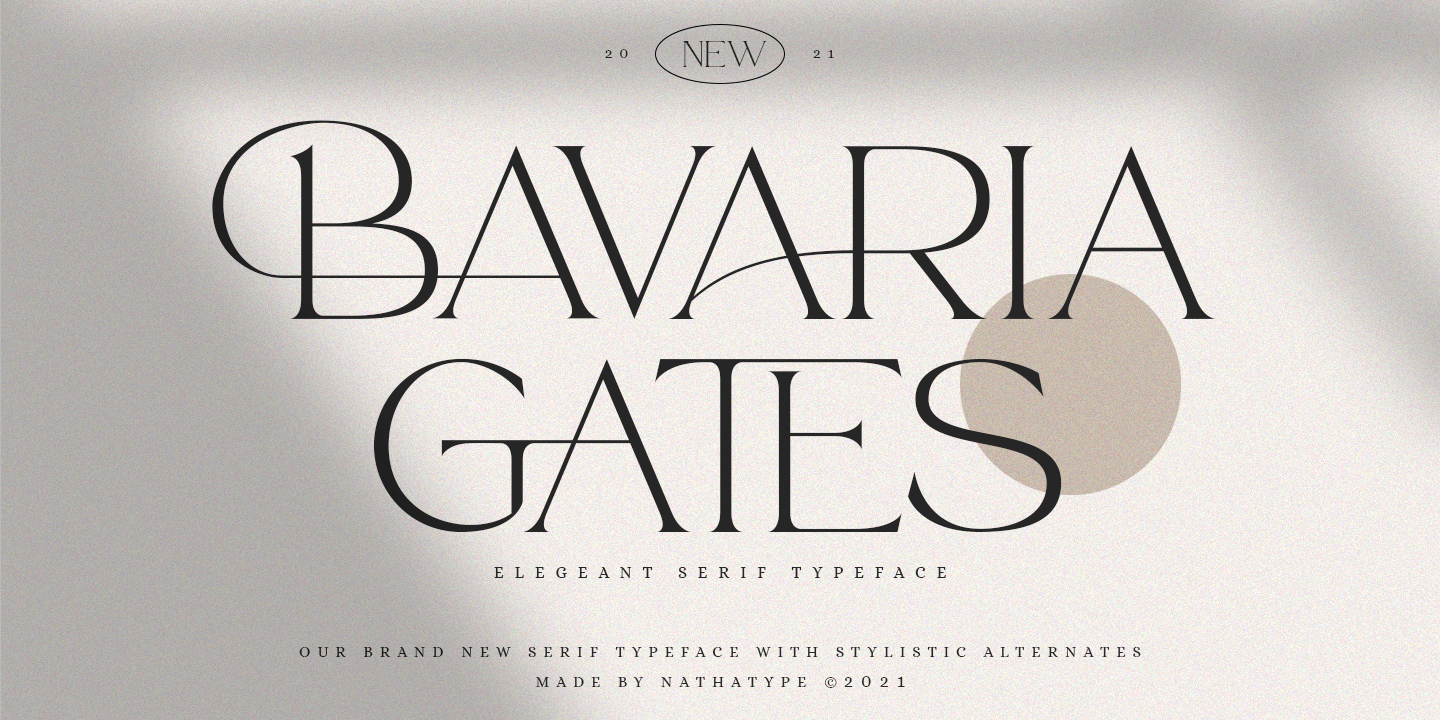
The Bavaria Gates Font is an excellent choice for designs that demand a modern, elegant, and often sophisticated serif aesthetic, perfect for conveying trust and establishment. Imagine it gracing the branding of high-end real estate agencies, adding a refined and professional feel to luxury lifestyle magazines, or bringing a distinguished yet accessible vibe to corporate reports. It's also perfectly suited for captivating book covers, impactful advertising campaigns, and any project where you want to convey a sense of reliability, timeless style, and a touch of modern flair. With its clean display and meticulously crafted uppercase characters, the Bavaria Gates Font is ideal for projects that aim for visual polish and a memorable, prestigious impression.
What makes the Bavaria Gates Font truly exciting is its remarkable ability to blend classic serif elegance with a contemporary touch. It’s designed entirely in uppercase, ensuring a strong, consistent, and easy-to-read presence across all applications. This font feels both authoritative and inviting, ensuring your message is not just seen, but respected and easily absorbed. Its stylistic features, such as ligatures, alternates, and swashes, provide designers with immense creative flexibility, allowing for unique typographic variations that can truly beautify your designs. It injects a sense of professionalism and cutting-edge design into your projects, making it a go-to choice for establishing a credible and sophisticated brand presence. The Bavaria Gates Font Free Download offers a fantastic opportunity to experience this typeface's versatile capabilities.
The Bavaria Gates Font family is a comprehensive serif font family designed for versatility. While it's noted for its all-uppercase characters, it typically offers a wide range of weights to suit various design needs. You can often expect to find:
Bavaria Gates Thin
Bavaria Gates Extra Light
Bavaria Gates Light
Bavaria Gates Regular
Bavaria Gates Medium
Bavaria Gates Semi Bold
Bavaria Gates Bold
Bavaria Gates Extra Bold
Bavaria Gates Black
Additionally, as mentioned, it often includes advanced OpenType features like ligatures, alternates, and swashes to enhance its aesthetic appeal and provide rich typographic variations, making it an all-in-one package for various branding and promotional needs.